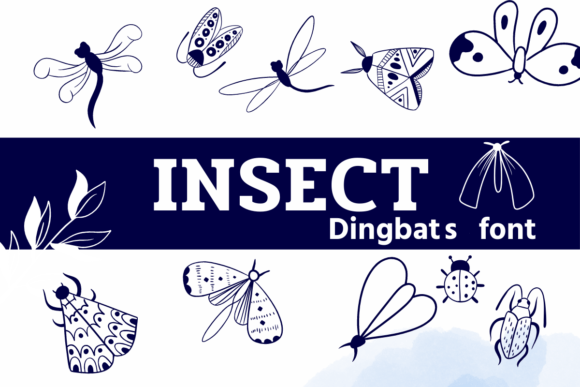
Unleash Your Creativity with Insect Font
Remember that magical moment when you stumbled upon the perfect font for your project? The one that brought your idea to life and made it truly unique? For designers, finding the right font can be the difference between a good project and a great one. It’s a feeling that’s hard to describe, but it’s a mix of excitement, relief, and pride.
Enter Insect Font, a lovely and cute dingbats font that’s perfect for adding a personal touch to your creative projects. Whether you’re designing wedding invitations, DIY crafts, or decorations, Insect Font is sure to bring a smile to your face and a touch of whimsy to your design.
As a designer, you know how valuable a versatile and unique font can be. Insect Font is exactly that – a valuable addition to any designer’s toolkit. With its playful and charming style, it’s sure to inspire your next creative project and help you stand out from the crowd.
Insect Font Key Features
- Character Set: The font features a unique set of characters, including insects, flowers, and other natural elements, making it perfect for designers who want to add a touch of whimsy to their projects.
- Unique Characteristics: The font features intricate details and textures, giving it a hand-drawn feel that is both charming and eye-catching.
Insect Font Review
Insect Font is a unique and quirky font that has a lot of potential, but it also comes with some limitations. Here’s my honest review:
- The font has a great sense of personality and can add a touch of whimsy to any design project.
- The insect-inspired shapes and details are cleverly designed and can add a lot of visual interest.
- The font is available in a range of weights and styles, making it easy to use in different contexts.
- The font can be difficult to read at smaller sizes, especially for text-heavy content.
- The insect shapes and details can be distracting if not used carefully, and may not be suitable for all types of projects.
- The font is not as versatile as some other fonts, and may not be suitable for use in formal or professional contexts.
Overall, Insect Font is a fun and creative font that can add a lot of personality to a design project. However, it’s not the best choice for every project, and should be used thoughtfully to avoid any potential distractions or readability issues.
Tips for Getting the Most Out of Insect Font
Here are some tips for getting the most out of Insect Font:
- Use Insect Font for headings and titles to create a unique and eye-catching design.
- Combine Insect Font with other fonts for a creative and eclectic look.
- Experiment with different font sizes and colors to create a visually appealing design.